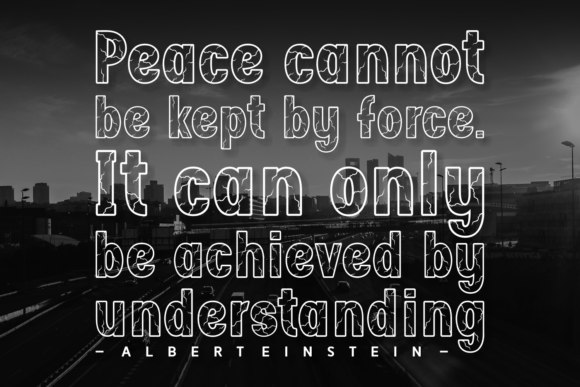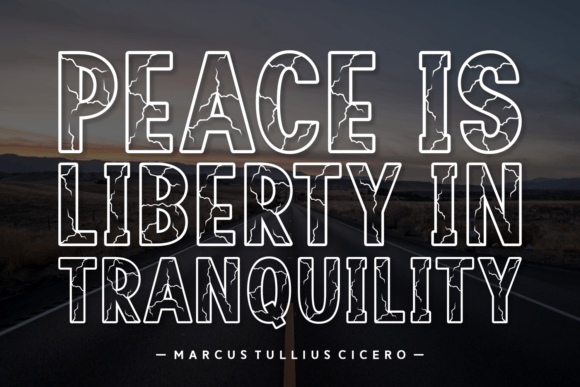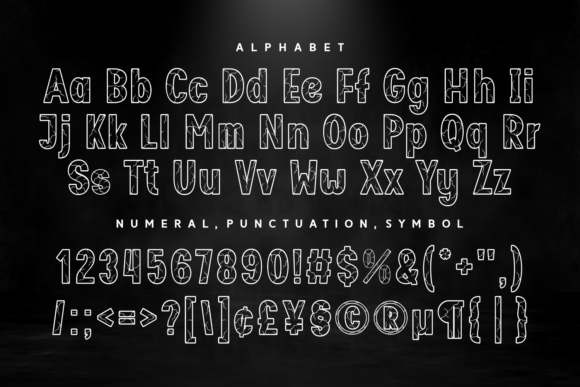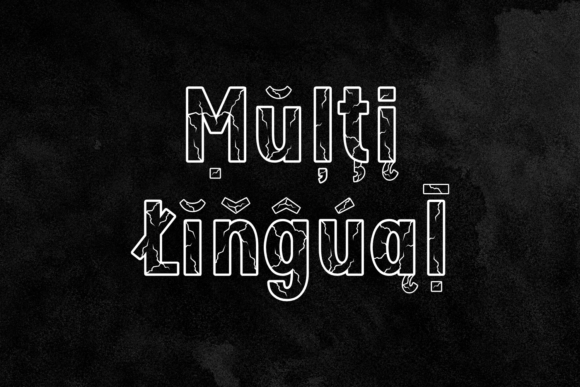
Crack Stone Font: Unleash Your Creativity with this Grungy Typeface
Are you tired of using the same old fonts for your designs? Look no further! Introducing Crack Stone Font, a unique decorative font with a grungy look that’s sure to add a touch of edginess to your creative projects. With its rugged texture and distressed appearance, this font is perfect for designers and crafters who want to express their ideas in a bold and eye-catching way.
What is Crack Stone Font?
Crack Stone Font is a decorative typeface that’s designed to give your text a grungy, worn-out look. Its unique characters are perfect for creating posters, titles, covers, banners, logos, and many more. The font’s distressed texture gives it a rugged, rough-around-the-edges feel that’s sure to grab attention.
Key Features of Crack Stone Font
• Unique Decorative Style: Crack Stone Font boasts a one-of-a-kind decorative style that’s sure to make your designs stand out from the crowd.
• Grungy Texture: The font’s grungy texture gives it a worn-out, distressed look that’s perfect for creating bold and eye-catching designs.
• Highly Versatile: Crack Stone Font can be used for a wide range of design projects, from posters and titles to logos and banners.
Uses for Crack Stone Font
Crack Stone Font is a highly versatile typeface that can be used for a wide range of design projects. Here are some ideas to get you started:
• Posters and Flyers: Use Crack Stone Font to create bold and eye-catching posters and flyers that grab attention.
• Titles and Headings: Add a touch of edginess to your titles and headings with this unique font.
• Covers and Packaging: Use Crack Stone Font to create striking covers and packaging that stand out on store shelves.
• Logos and Branding: Create a bold and memorable logo for your brand with this distinctive font.
• Banners and Signs: Use Crack Stone Font to create eye-catching banners and signs that get noticed.
Tips for Using Crack Stone Font
Here are some tips for getting the most out of Crack Stone Font:
• Experiment with Colors: Try pairing Crack Stone Font with bold and bright colors to really make your design pop.
• Play with Texture: Experiment with different textures and patterns to add depth and interest to your design.
• Keep it Simple: Don’t be afraid to keep your design simple and clean – sometimes less is more.
• Have Fun: Most importantly, have fun and be creative! Crack Stone Font is all about expressing yourself and adding a touch of edginess to your designs.
Font Name Crack Stone Font
Author Feri (7NTypes)